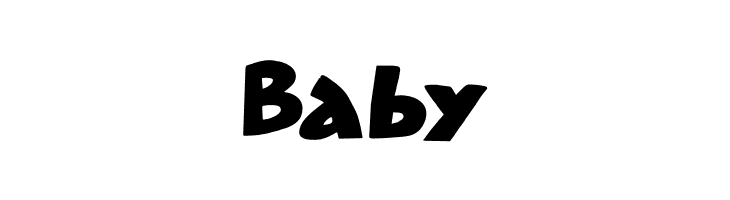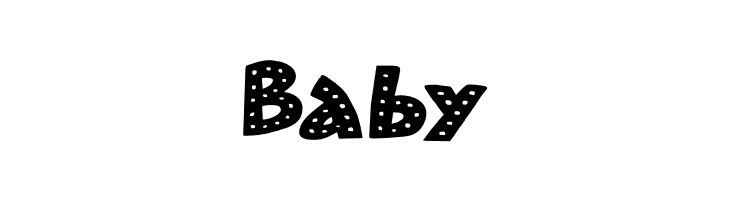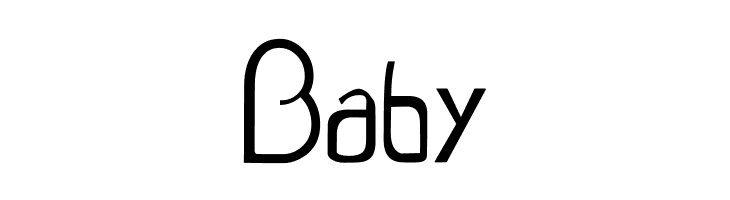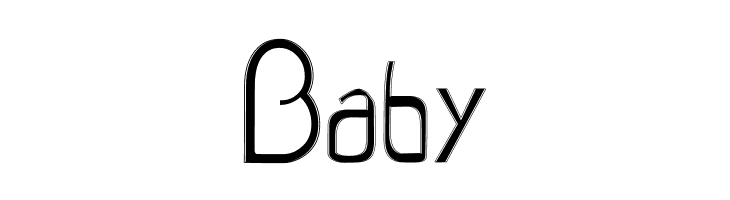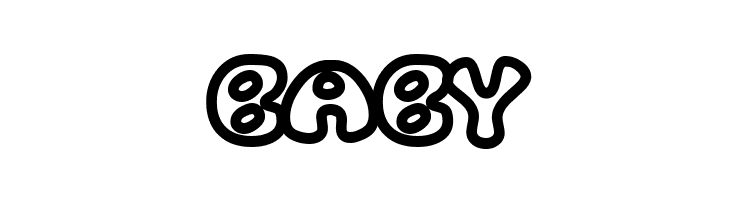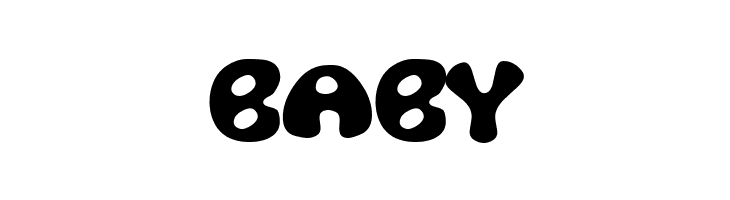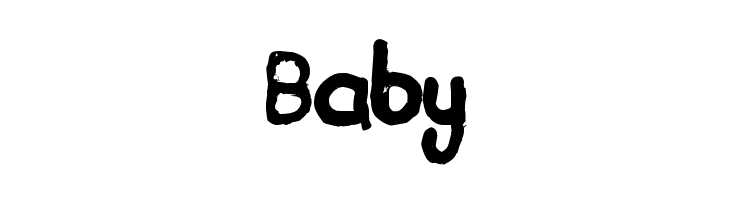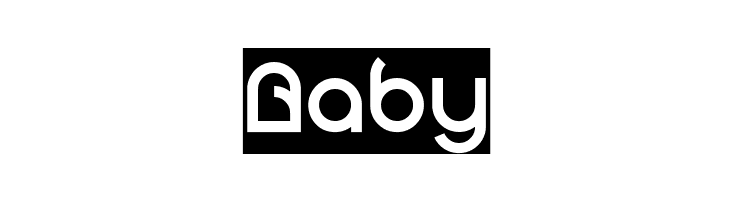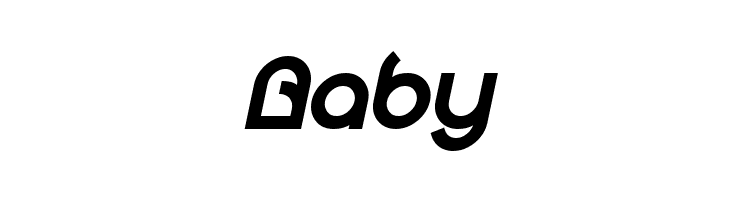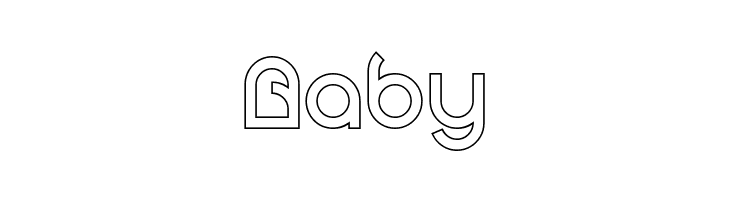
( Typhoon Type - Suthi Srisopha - www.typhoontype.net )
A decorative cursive font with elegant, flowing strokes and artistic flourishes.
( Typhoon Type - Suthi Srisopha - www.typhoontype.net )
A cursive, handwritten font with elegant, flowing strokes.
A bold, futuristic font with geometric shapes and unique curves.
( Fonts by Hanoded )
A playful, bold font with a hand-drawn, whimsical style.
( Fonts by Hanoded )
A playful, dotted font with bold, rounded characters perfect for fun and engaging designs.
( Fonts by Vable Studio )
A bold, playful font with a three-dimensional outlined style.
A bold, angular font with a futuristic and sporty aesthetic.
A bold, geometric font with angular cuts and a dynamic style.
A bold, blocky font with a modern industrial style and rounded edges.
A bold, blocky font with a strong, industrial style.
Cartoon animal faces form each character in a playful, decorative style.
Cartoon animal face icons as font characters.
A bold, geometric font with a modern and decorative style.
( Fonts by billyargel.blogspot.com - Billy Argel )
A bold, geometric font with angular shapes and a modern aesthetic.
A decorative icon font themed around plastic surgery and cosmetic procedures.
( Fonts by Dave Kellam - Brian Stuparyk - www.eightface.com )
A playful, bold font with rounded, bubbly characters ideal for fun and creative projects.
( Fonts by Dave Kellam - Brian Stuparyk - www.eightface.com )
A bold, playful font with rounded, bubble-like characters and a cartoonish style.
A futuristic, hollow, geometric font with a modern aesthetic.
A modern, hollow, inverse font with geometric and futuristic elements.
A bold, futuristic font with geometric shapes and an inverse style.
A futuristic, geometric font with bold, angular letterforms and smooth curves.
A bold, geometric font with sharp angles and a futuristic look.
( Fonts by Billy Argel Fonts ® )
A bold, decorative font with intricate patterns and a modern, artistic style.
A bold, playful font with dynamic, irregular shapes and high contrast.
A bold, italicized font with a jagged, distressed style.
( Fonts by Thomas O`Callaghan - www.tomocallaghan.co.uk )
A playful, textured font with a handcrafted, clay-like appearance.
( Fonts by Vable Studio )
A bold, playful font with a 3D comic book style.
( David Luscombe - www.davidluscombe.com/ )
A bold, playful font with wavy, dynamic characters.
A modern, geometric font with elongated, streamlined characters.
( 11th Floor - formerly www.xs4all.nl/~buro )
A bold, distressed font with a vintage, textured appearance.
A modern, Art Deco-inspired font with sleek, elongated characters.